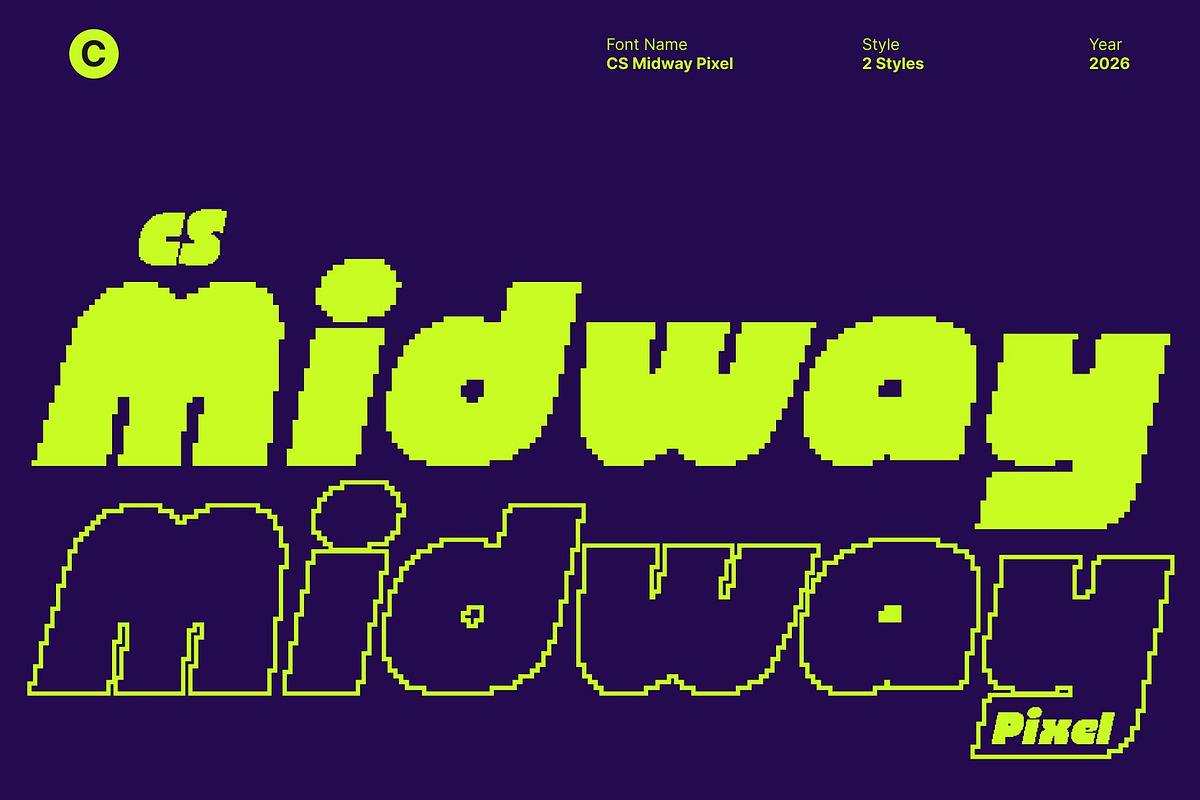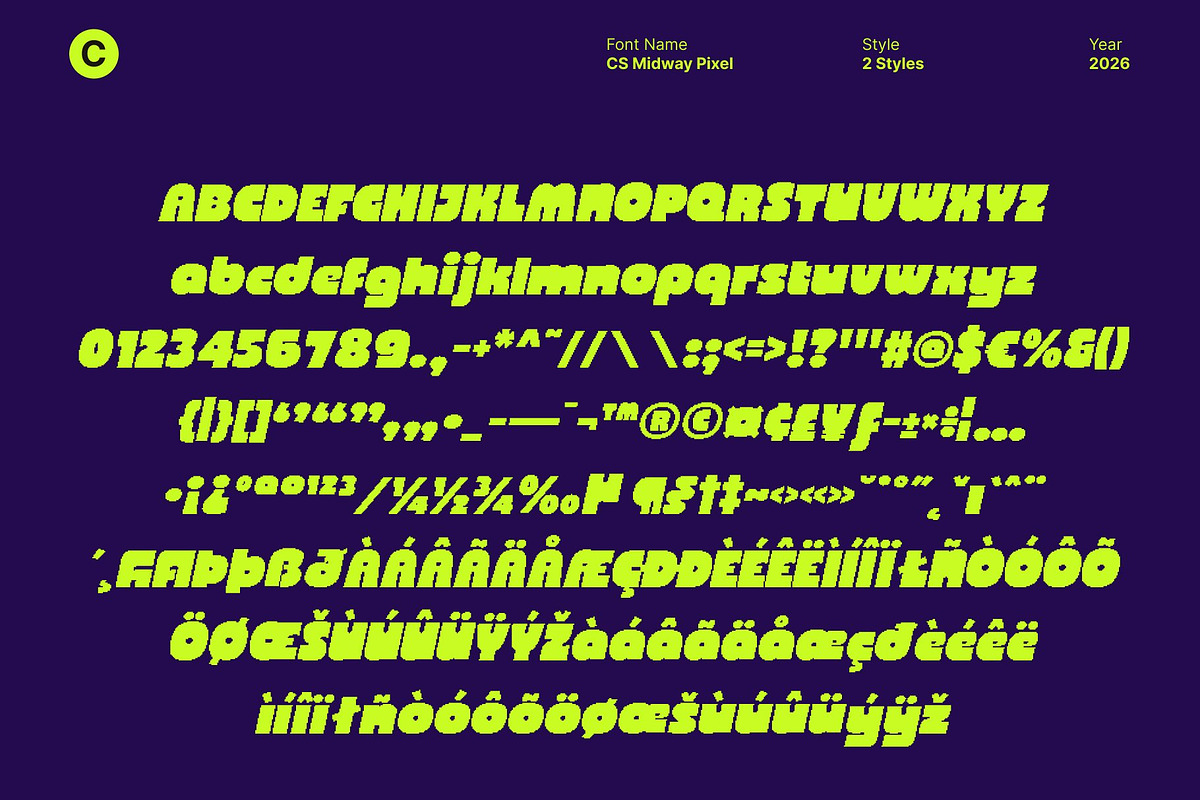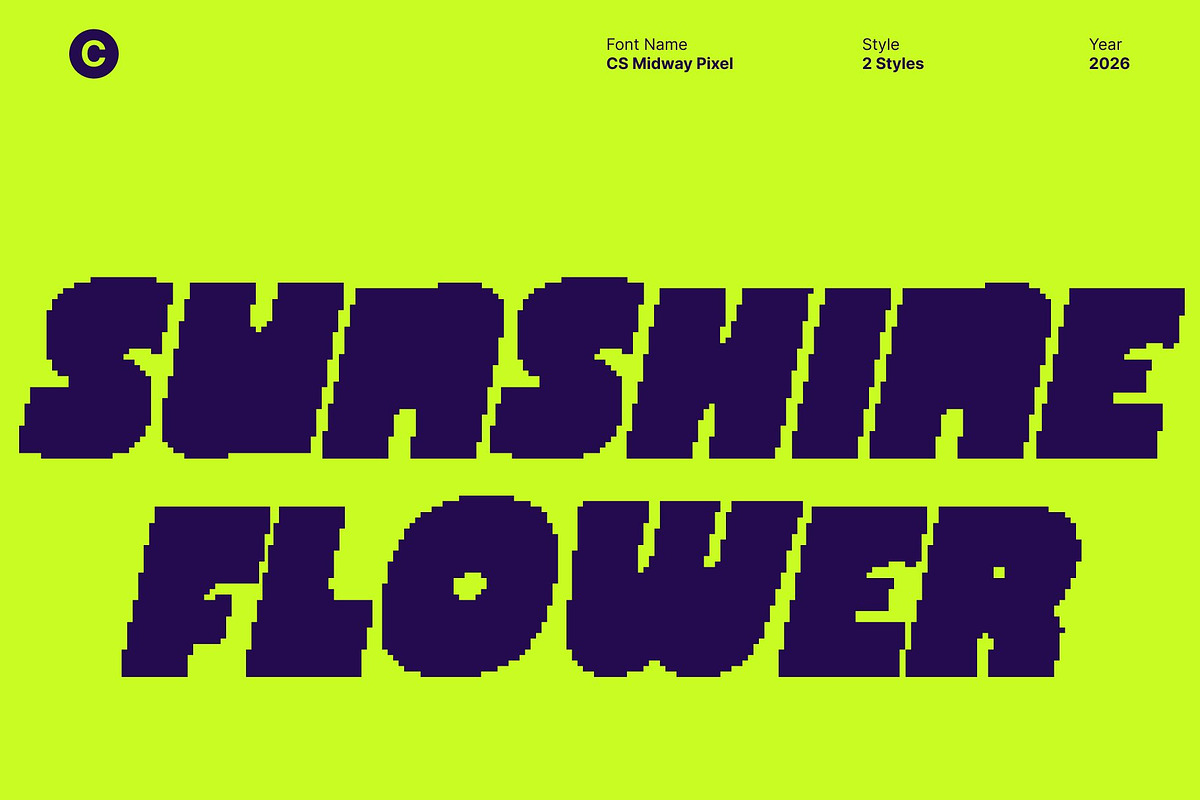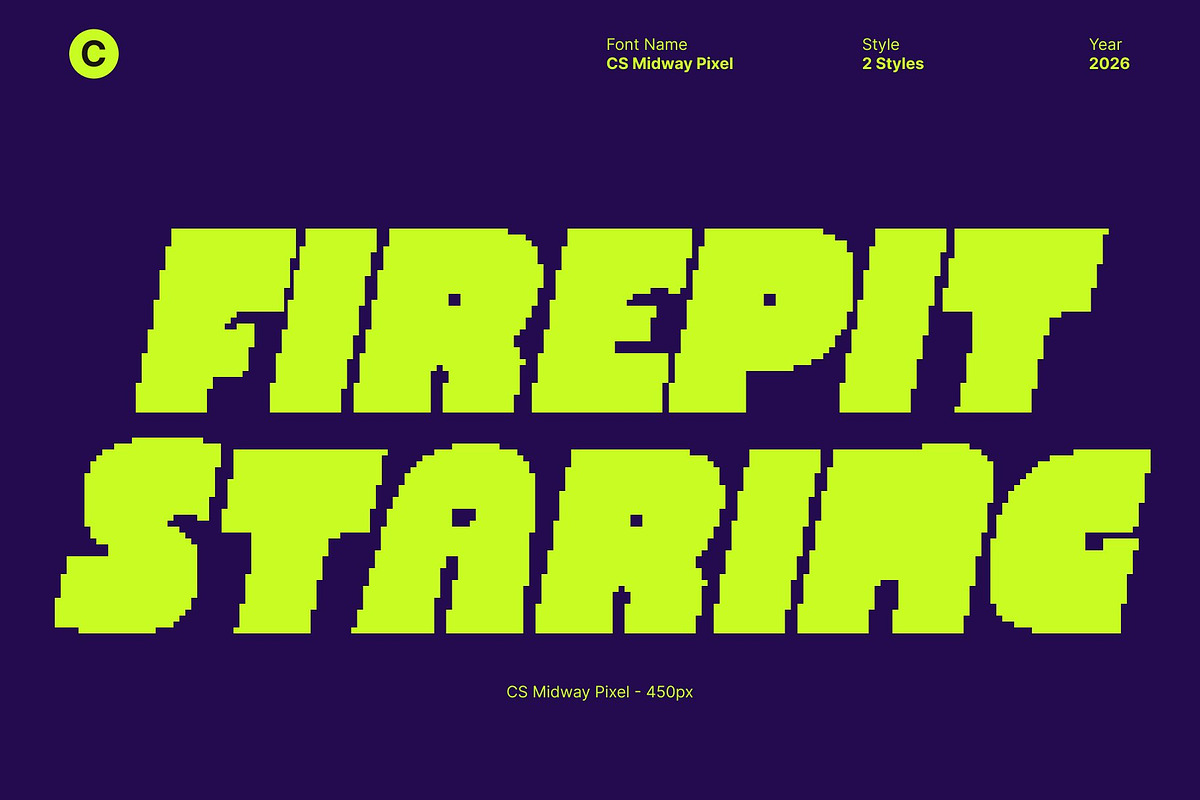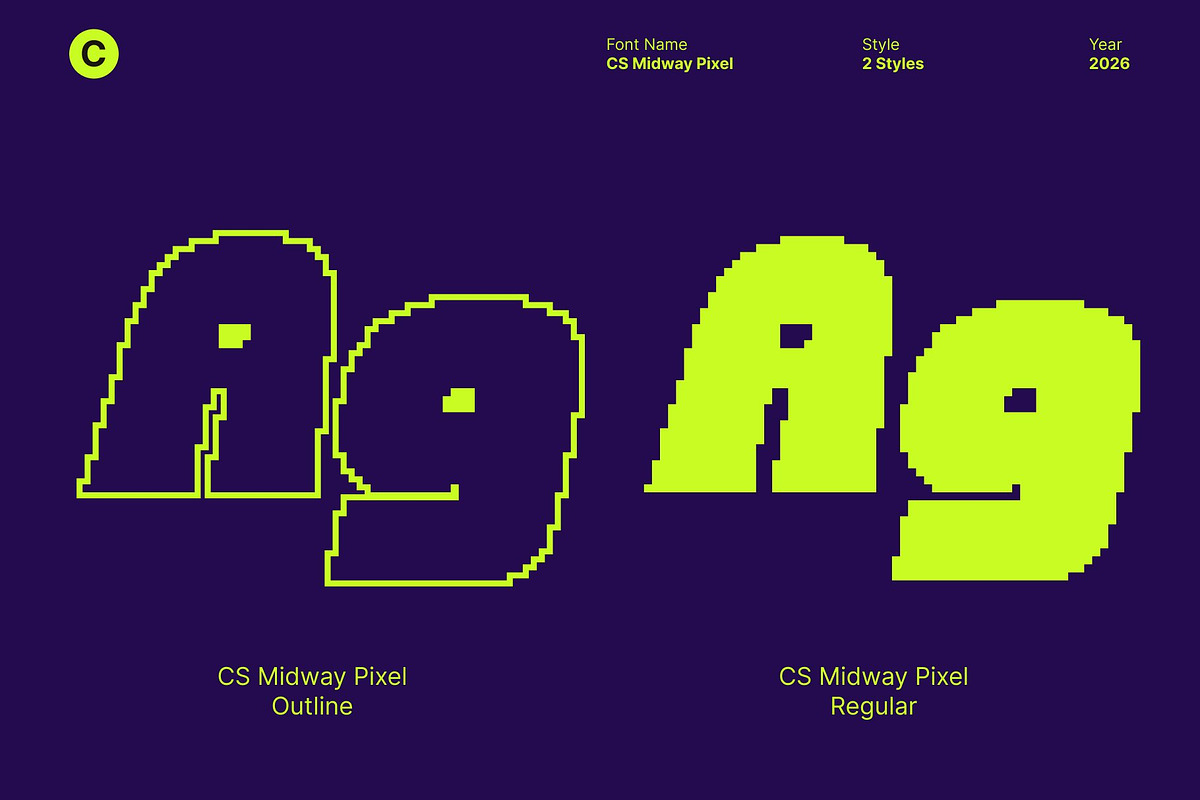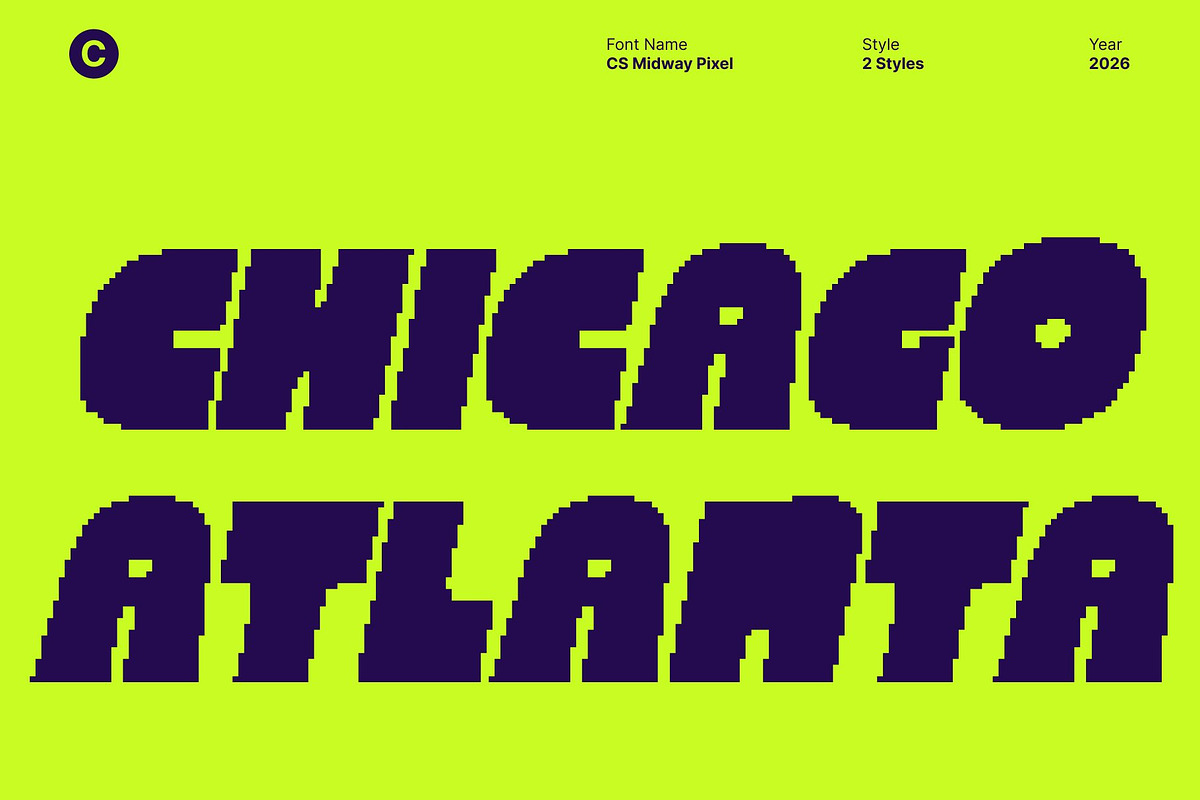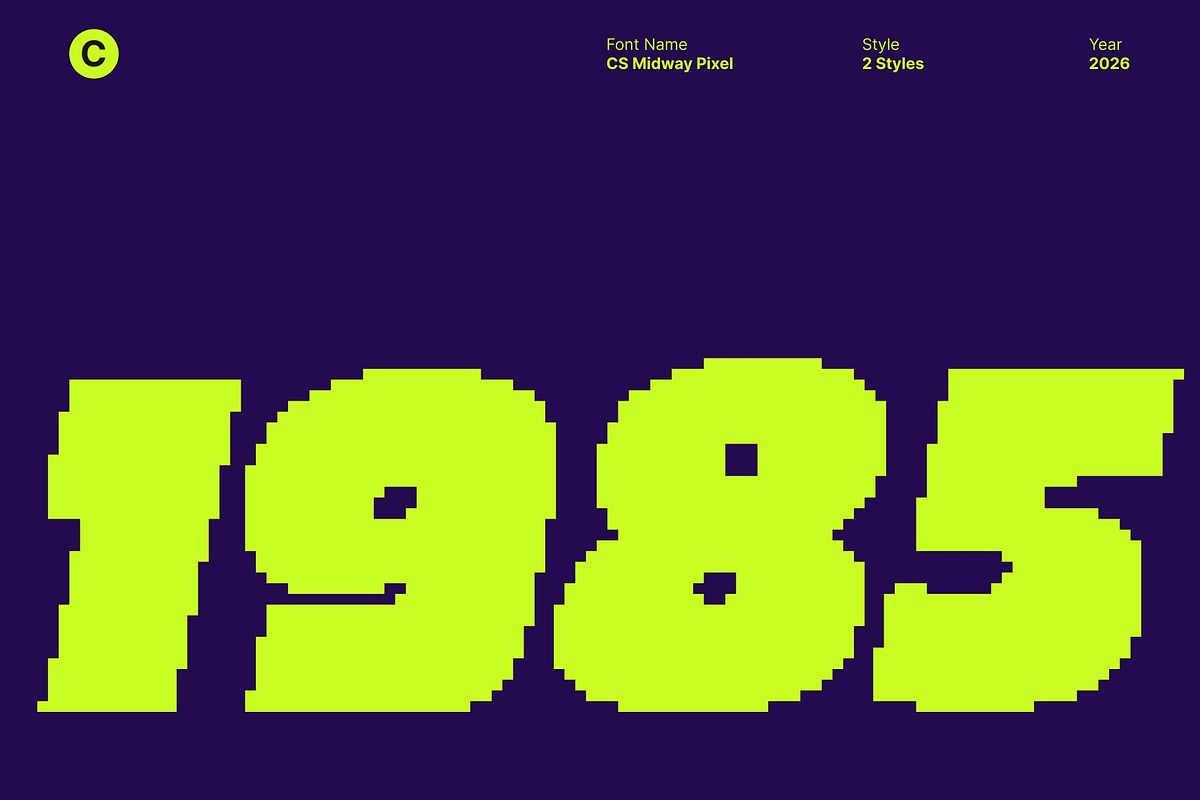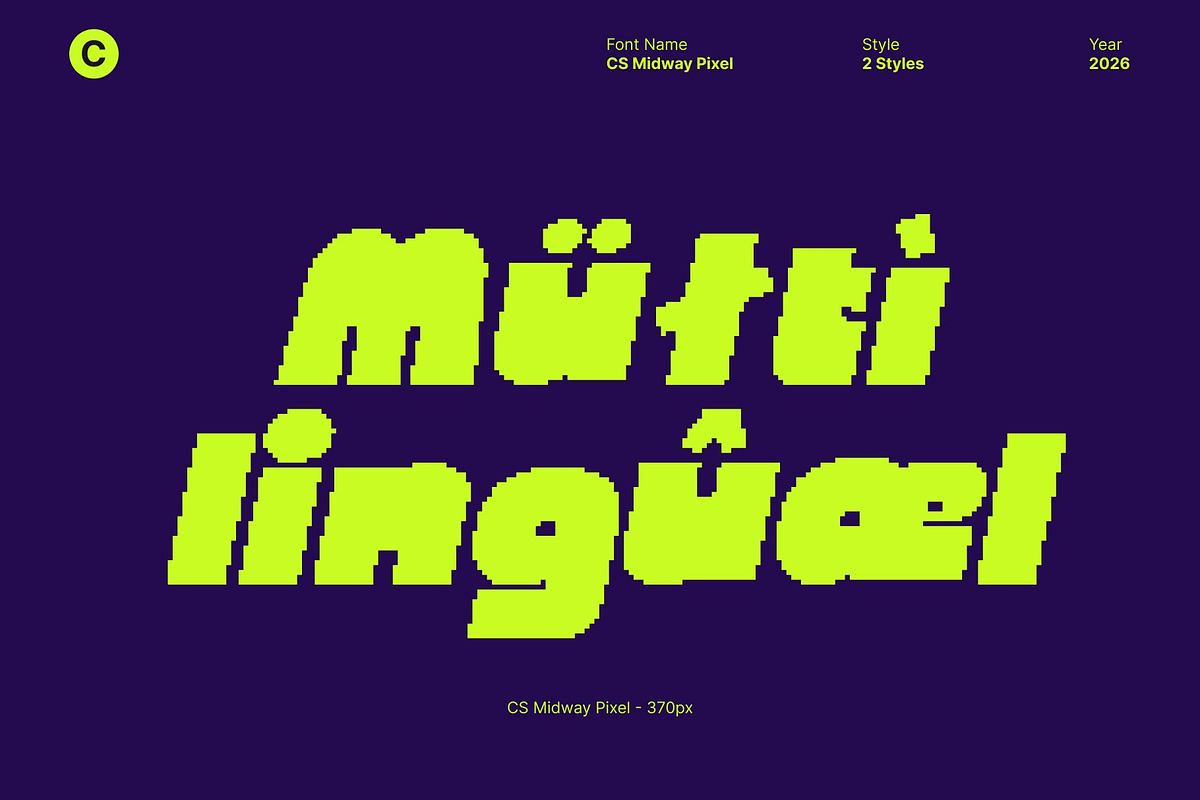
CS Midway Pixel
CS Midway Pixel – Bold Display Font with Funky Digital Impact
Bold and Clean Design with Pixel Funk Energy This is a modern sans serif display font featuring bold, solid letterforms enhanced with pixel-inspired construction. Its clean structure delivers instant impact, while funky digital details inject energy, freshness, and creative confidence into every word.
Fresh Style with Strong Pixel Character More than just bold, this font carries a playful yet powerful personality. The combination of heavy forms and pixel accents creates typography that feels modern, approachable, and visually dynamic perfect for designs that want to stand out without feeling chaotic.
Eye-Catching Typography for High-Impact Designs From vibrant headlines and posters to logos, packaging, and promotional materials, this font ensures your message commands attention. Its strong presence and funky digital flair make it ideal for bold branding and expressive visual communication.
Versatile for Creative and Professional Digital Use While energetic in spirit, this font remains adaptable for professional contexts. It balances strength with creativity, making it a versatile choice for branding, social media visuals, digital campaigns, and modern editorial layouts that need both impact and clarity.
- CS Midway Pixel Regular
- CS Midway Pixel Outline